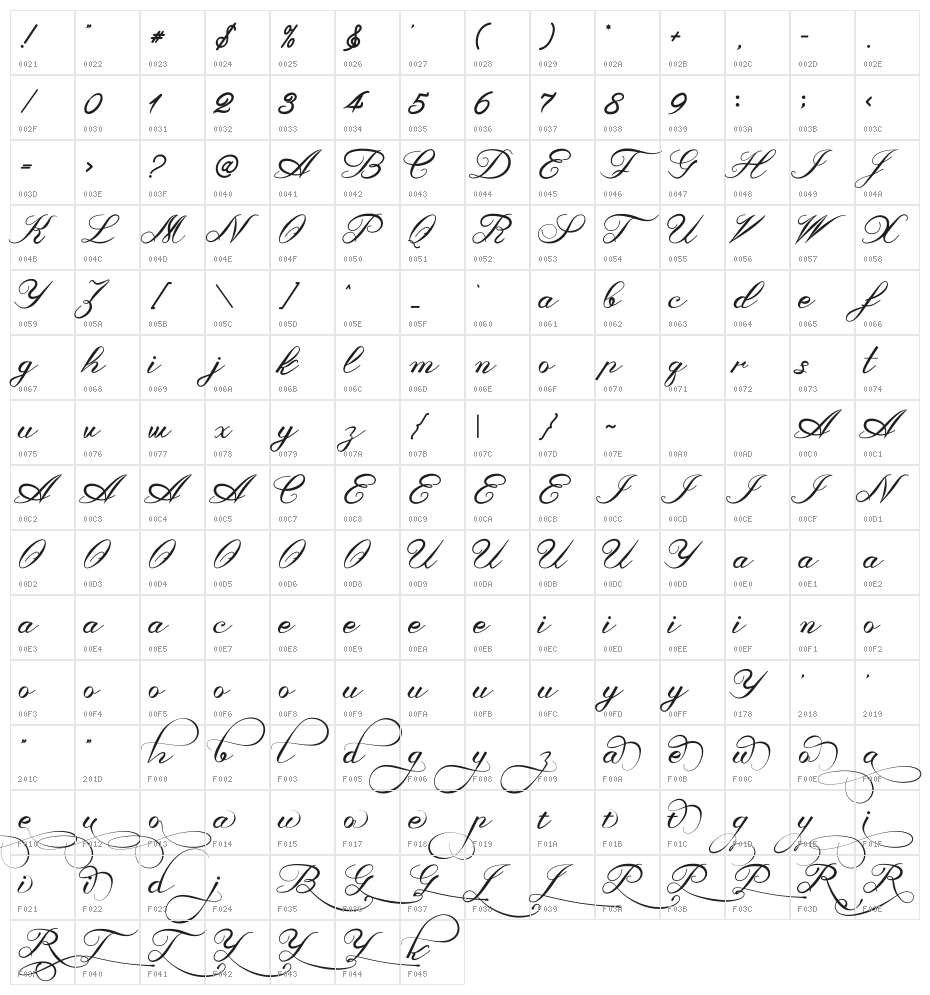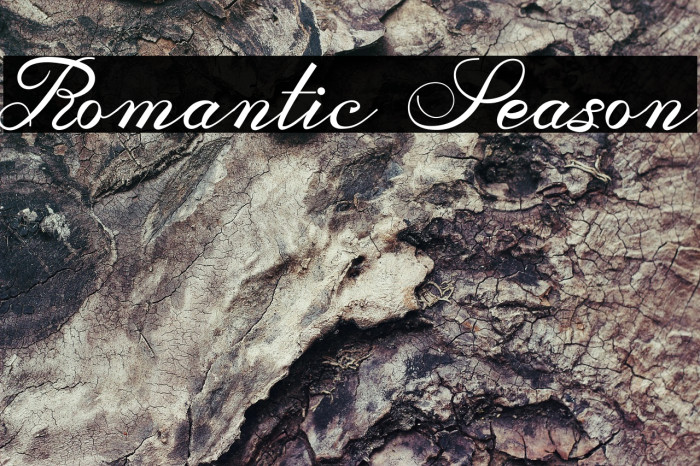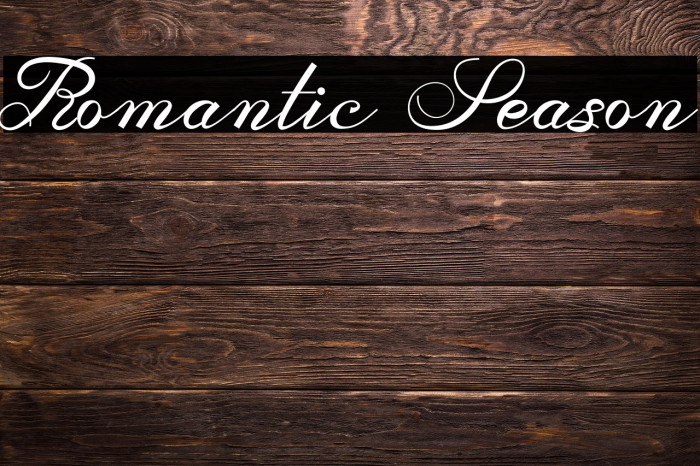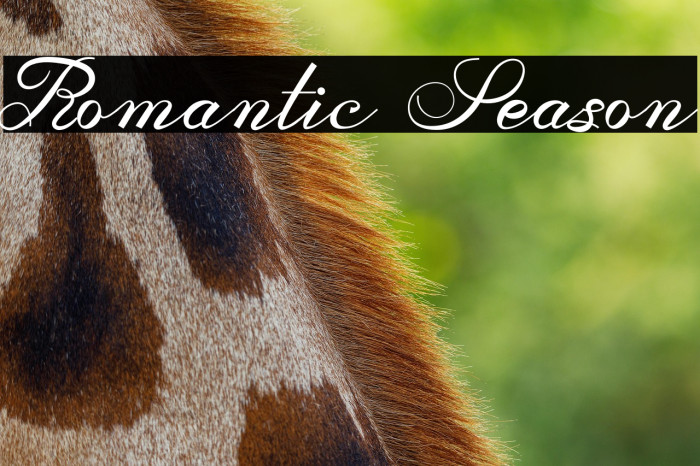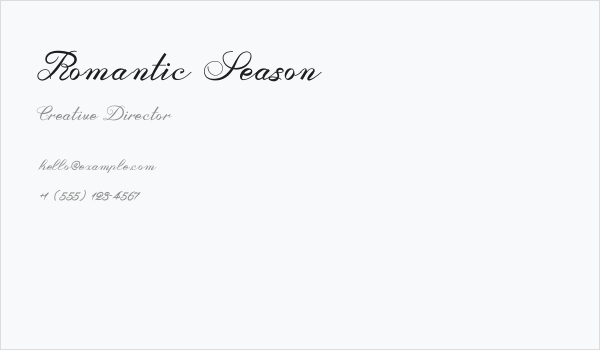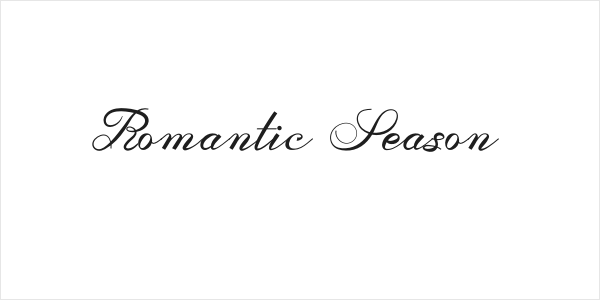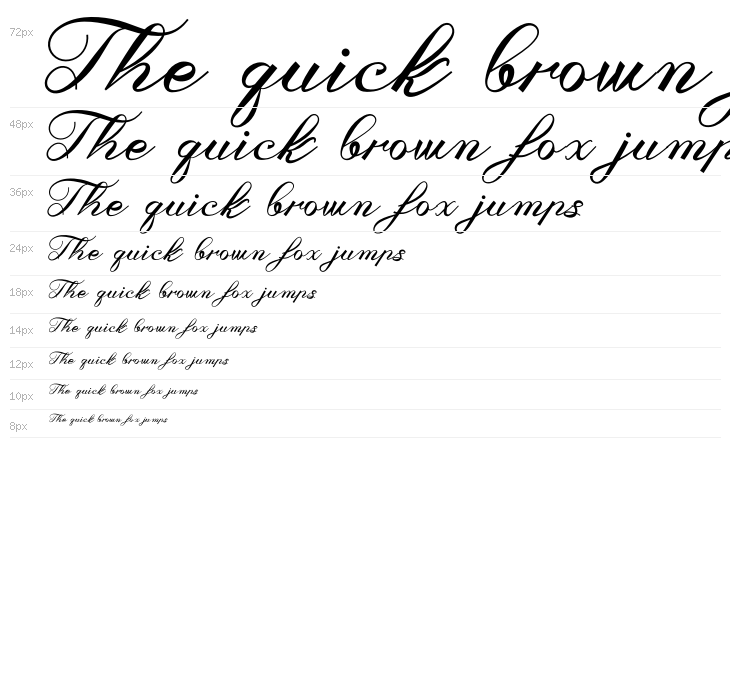
Romantic Season Font
Romantic Season Description
This elegant script font exudes a sense of romance and sophistication, characterized by its flowing, cursive style. The letters are intricately designed with delicate loops and swirls, giving it a graceful and ornate appearance. The uppercase letters are particularly elaborate, featuring extended flourishes that add a touch of drama and flair. The lowercase letters maintain a consistent flow, ensuring readability while still retaining their decorative nature. The numerals and special characters are designed to match the overall aesthetic, with smooth curves and a cohesive style. This font is perfect for creating a romantic or luxurious feel in any design project.
| Overall Style | Romantic |
| Use Case | Headlines, Invitations, Branding |
| Proposed Projects | Ideal for wedding invitations, greeting cards, branding, and luxury product packaging. |